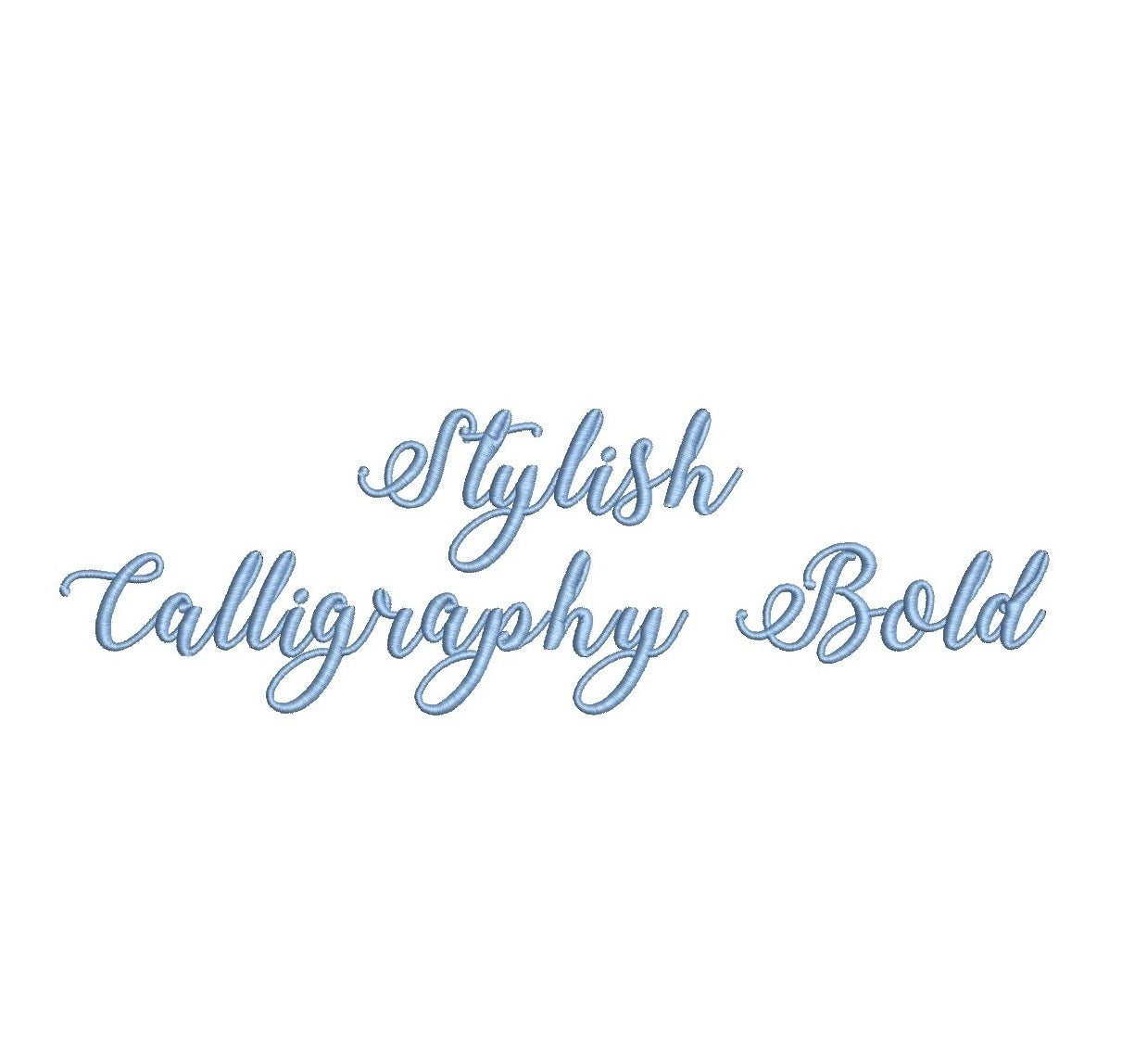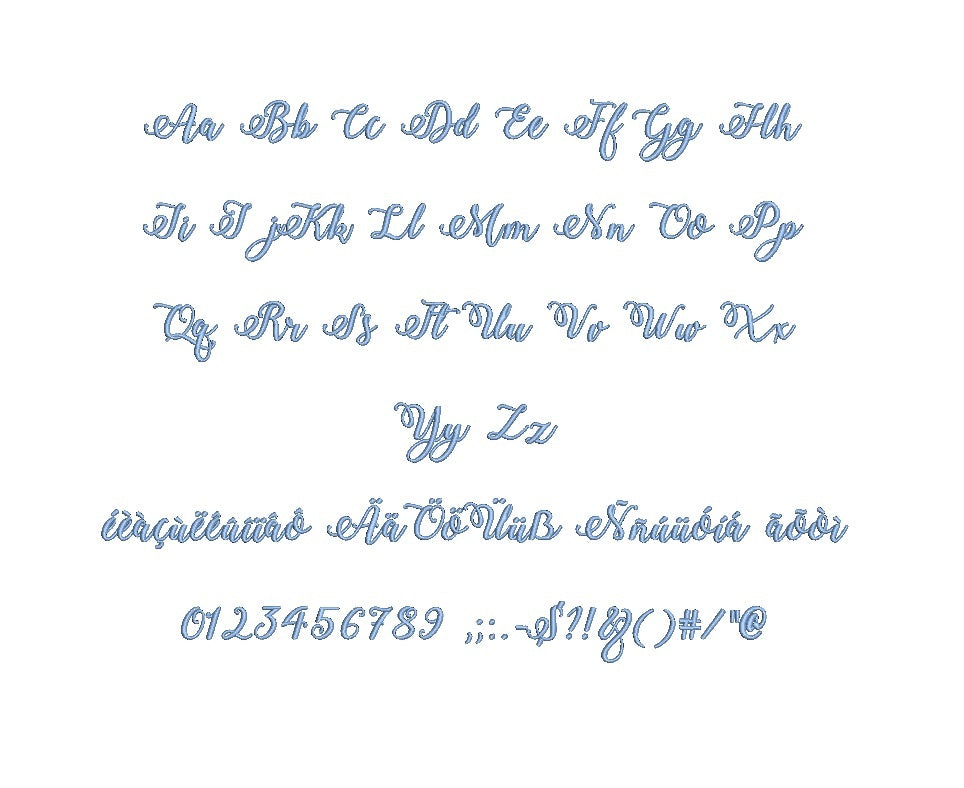
Unleash elegance with the 'Stylish Calligraphy Bold ESA' font, tailor-made for embroidery enthusiasts seeking sophistication and flair. This graceful typeface adds a touch of modernity and artistry to your creations, elevating them to new levels of style. Seamlessly compatible with Wilcom Studio e4.5.6 and Hatch 3 versions and above, it effortlessly integrates into your digitizing workflow. Its bold and fluid strokes ensure impeccable stitch quality, bringing your embroidery projects to life with captivating beauty. Ideal for chic monograms, quotes, and decorative elements, this ESA font sparks creativity and guarantees exquisite results. Embrace the allure of 'Stylish Calligraphy Bold ESA' font today!